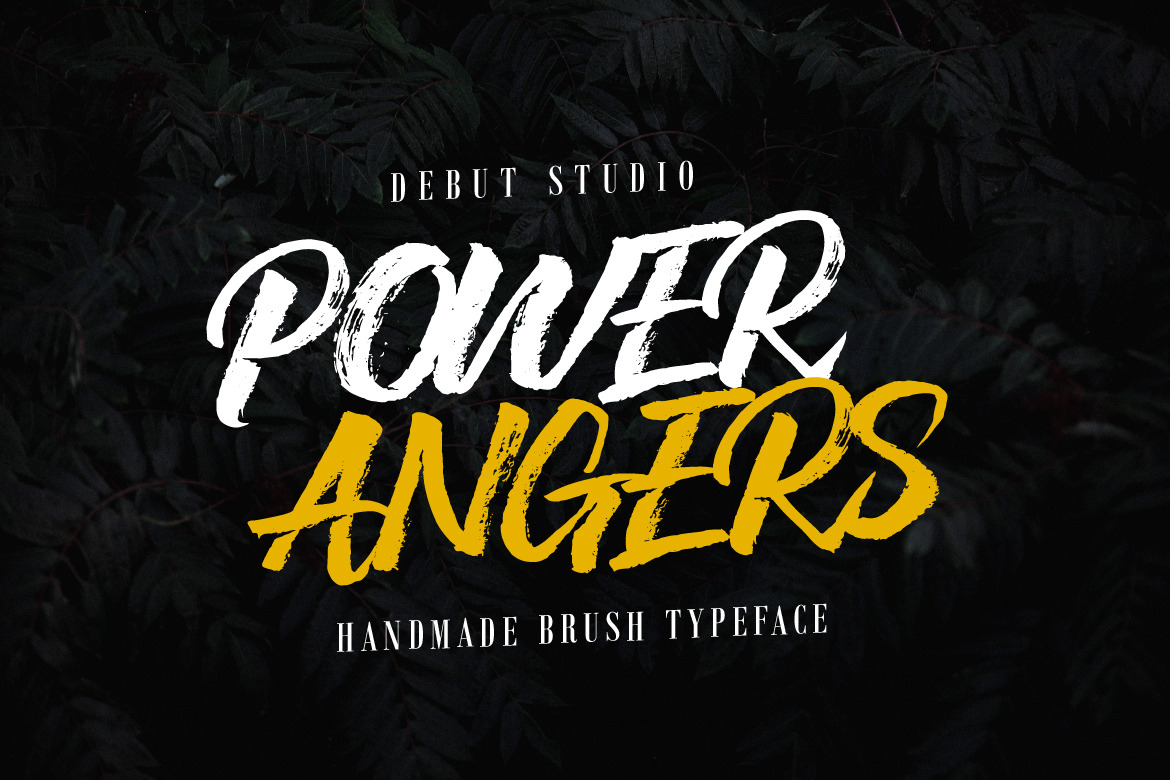
POWER ANGERS - Handbrush Typeface
POWER ANGERS is a new handbrush typeface from Debut Studio. POWER ANGERS is ideal for logos, apparel, quotes, product packaging, or anything which needs a typographic turbo-boost.
This Typeface only have Uppercase only and available with OTF and TTF format